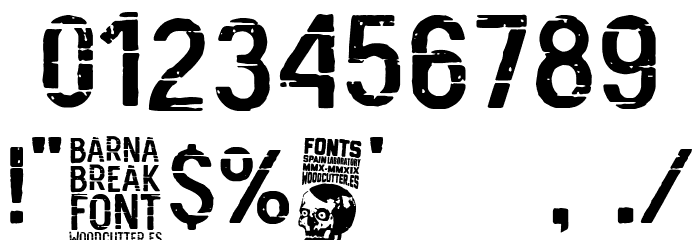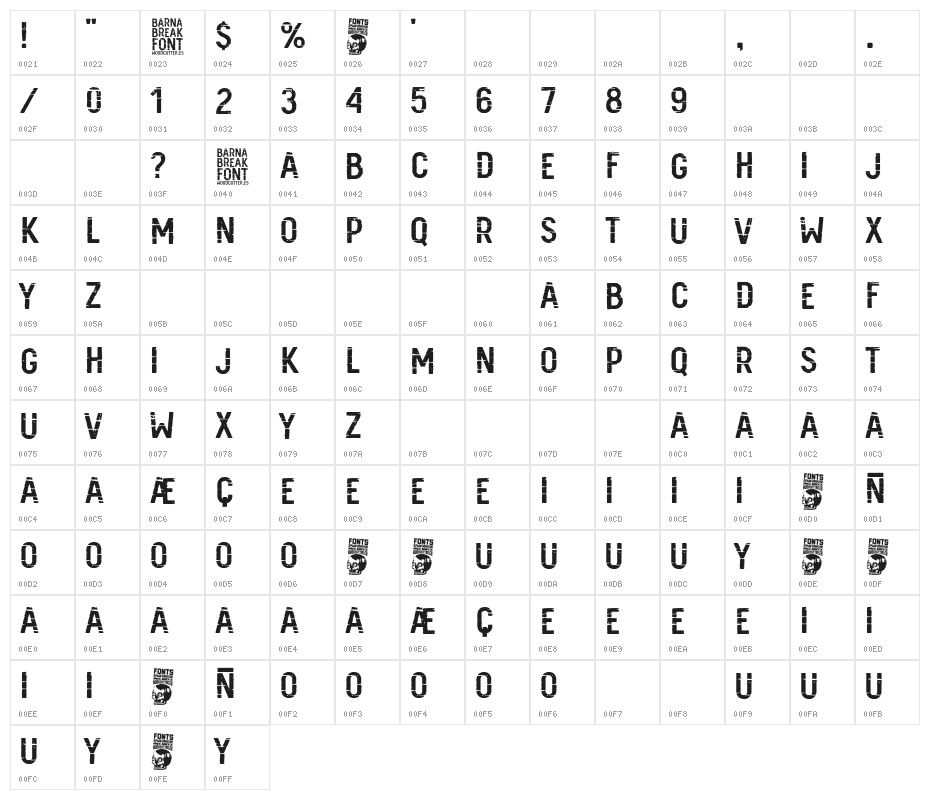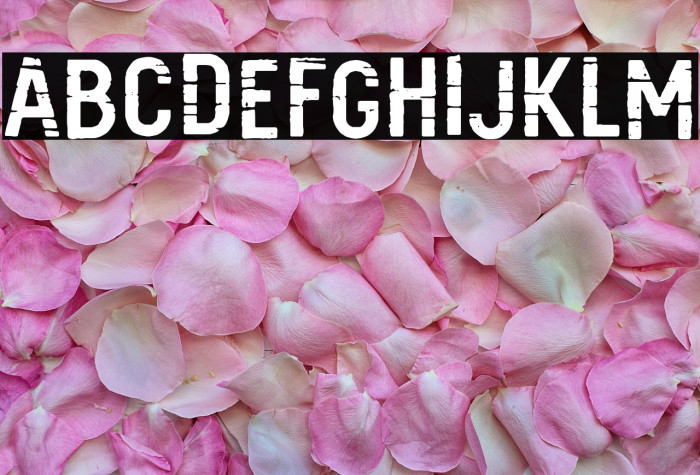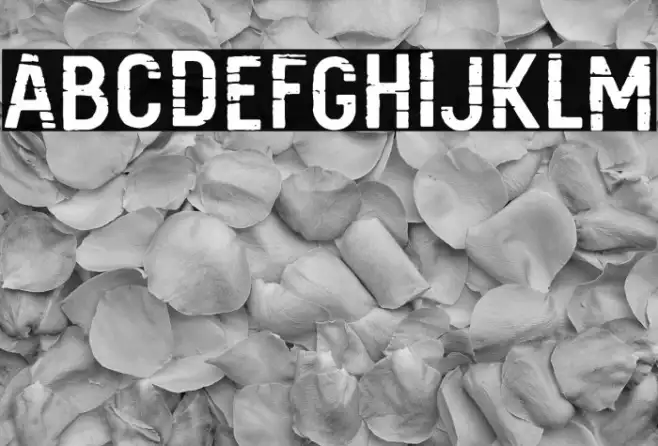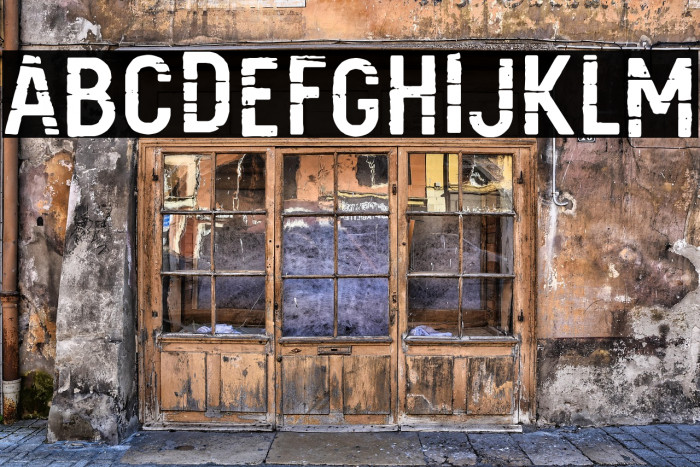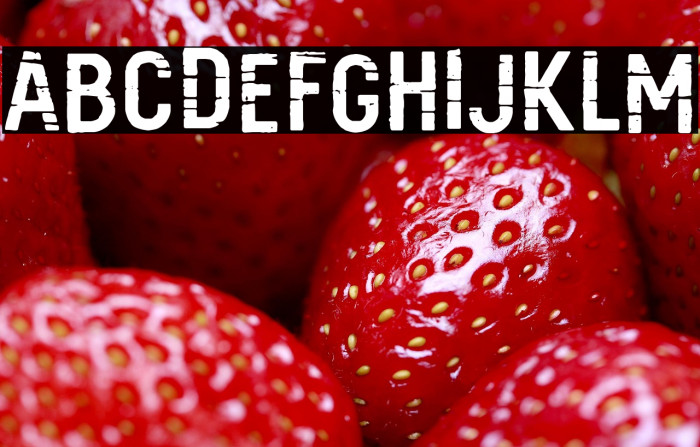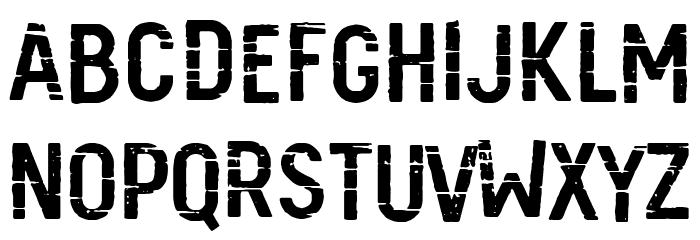
Barna Break Font
Barna Break Description
This font exhibits a rugged, distressed style with a bold and impactful presence. Each character appears to have a weathered, textured effect, giving it a raw and edgy look. The uppercase and lowercase letters maintain a consistent height, while the numbers and special characters follow the same distressed theme. The font's design suggests a sense of urgency and boldness, making it suitable for projects that require a strong visual impact. The characters are evenly spaced, ensuring readability despite the distressed appearance.
| Proposed Projects | Ideal for posters, album covers, branding for edgy or alternative products, and any design requiring a strong, impactful statement. |